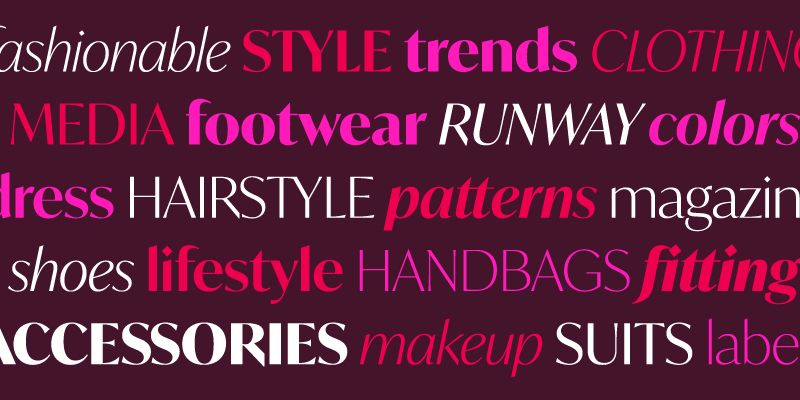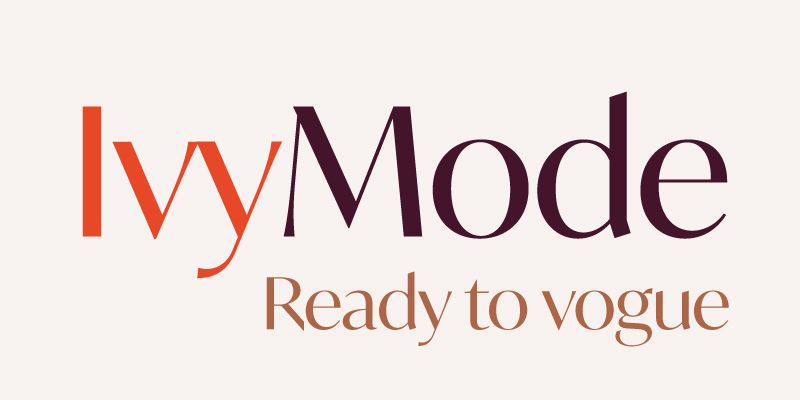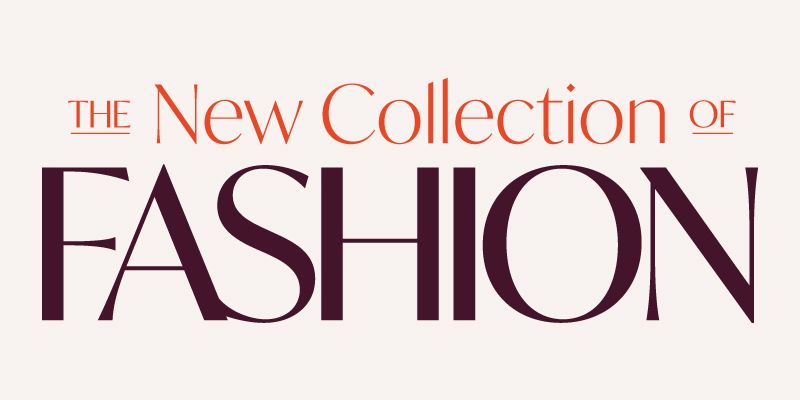
IvyMode started out as a high-contrast companion to IvyJournal before evolving into a distinct design in its own right. Jan Maack’s new sans hints at serifs via subtly flared stroke endings and offers an extended collection of novel ligatures, alternates, and additional glyphs. Diamond dots and punctuation, pronounced contrast, extenders cut on the bias, and slightly angled stress give this face the crispness of a freshly ironed toile. The Ivy Foundry, 2018.